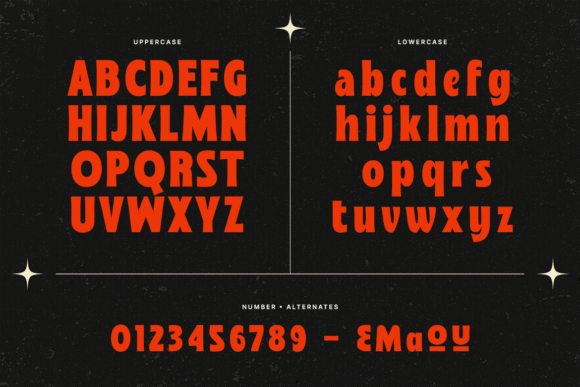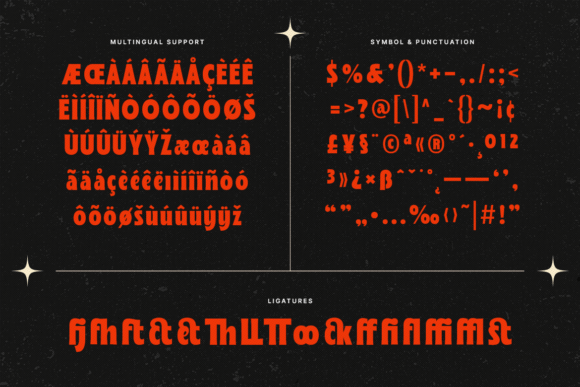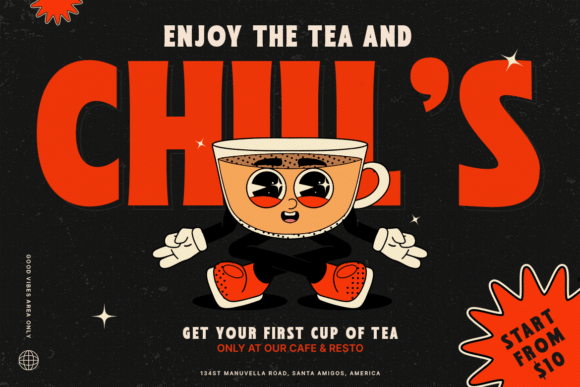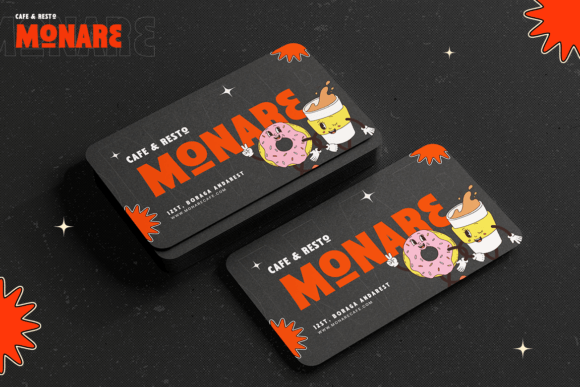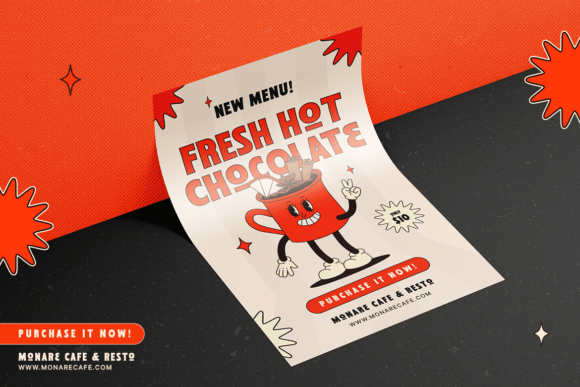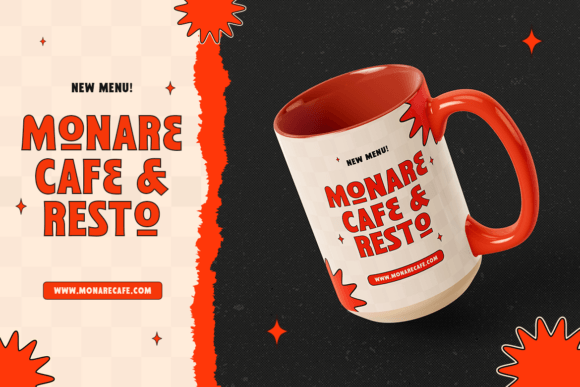
The Retro Revival: Unleashing the Fun with Bulgie Font
Who hasn’t experienced that moment of creative bliss when a new font suddenly sparks an idea? For designers, it’s like stumbling upon a hidden treasure that elevates their projects to the next level. And that’s exactly what the Bulgie Font offers – a fresh and vibrant retro sans font that captures the playful spirit of mid-century design.
Perfect for logos, posters, packaging, and social media graphics, the Bulgie Font brings a nostalgic yet contemporary vibe to any design. Its rounded edges and bold, friendly letterforms make it an ideal choice for anyone looking to create standout visuals with a retro flair. Whether you’re a seasoned designer or just starting out, the Bulgie Font is a valuable addition to your creative arsenal.
Bulgie Font Key Features
- Unique Characteristics: Bulgie Font features a bold, playful, and energetic design, perfect for creating eye-catching headlines and titles.
Bulgie Font Review
I recently had the chance to work with the Bulgie font, and I’m excited to share my honest thoughts about this typeface.
- ✨ The Bulgie font is super versatile. It works well for both digital and print media, making it a great choice for designers who need a font that can adapt to different platforms.
- ✨ The font has a unique, quirky feel that’s perfect for adding some personality to your designs. It’s especially great for projects that need a bit of whimsy or playfulness.
- ✨ The Bulgie font is also highly customizable, with a wide range of weights and styles to choose from. This makes it easy to find the perfect version for your specific project.
- ⚠️ The Bulgie font can be a bit challenging to read at smaller font sizes. This may be a concern for designers who need to use the font for body text or other situations where readability is crucial.
- ⚠️ The font’s unique style may not be to every designer’s taste. Some people may find it too quirky or overwhelming.
Overall, I think the Bulgie font is a great choice for designers who want to add some personality and whimsy to their projects. While it may have some limitations, its versatility and customizability make it a valuable addition to any designer’s toolkit.
Tips for Getting the Most Out of Bulgie Font
For optimal results, use the Bulgie Font in bold or italic styles to add emphasis to your text. Experiment with different font sizes and colors to create a visually appealing design. Avoid using the Bulgie Font for large blocks of text, as it may become difficult to read.
The Bulgie Font is ideal for use in creative projects, such as social media graphics, posters, and flyers. It’s also a great choice for branding and marketing materials, as it adds a unique and eye-catching touch to your design.